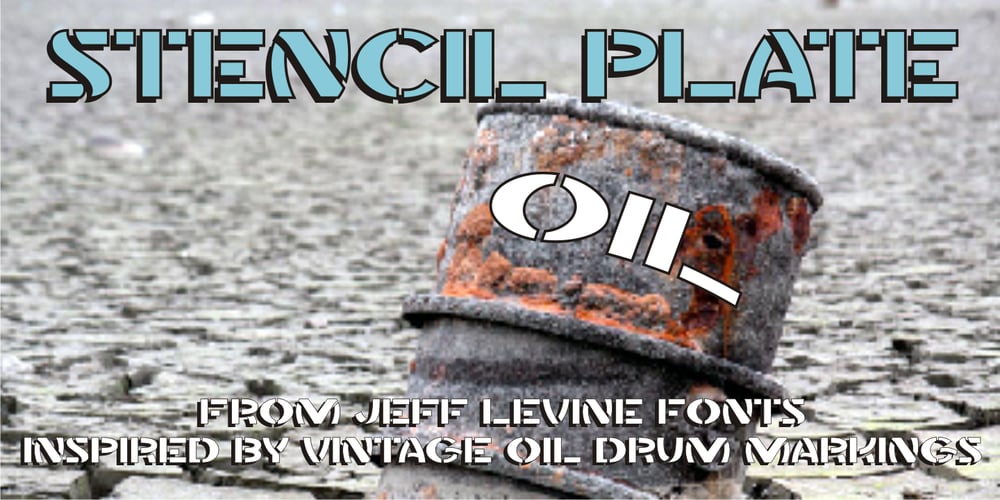
Stencil Plate JNL
Stencil Plate JNL font
Stencil Plate JNL Font Family was designed by Jeff Levine and published by Jeff Levine. Stencil Plate JNL contains 1 styles and family package options. A brass stencil hand cut to mark the tops of oil drums yielded the lettering for Stencil Plate JNL. The font emulates the retro feel of the unique letter forms found in the original antique design.